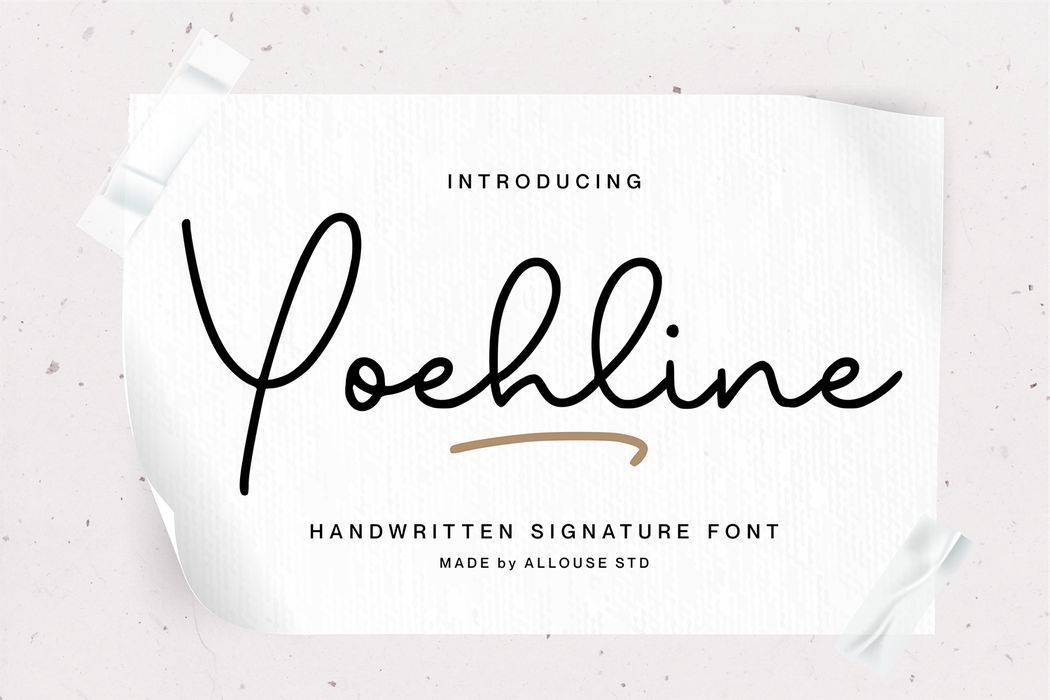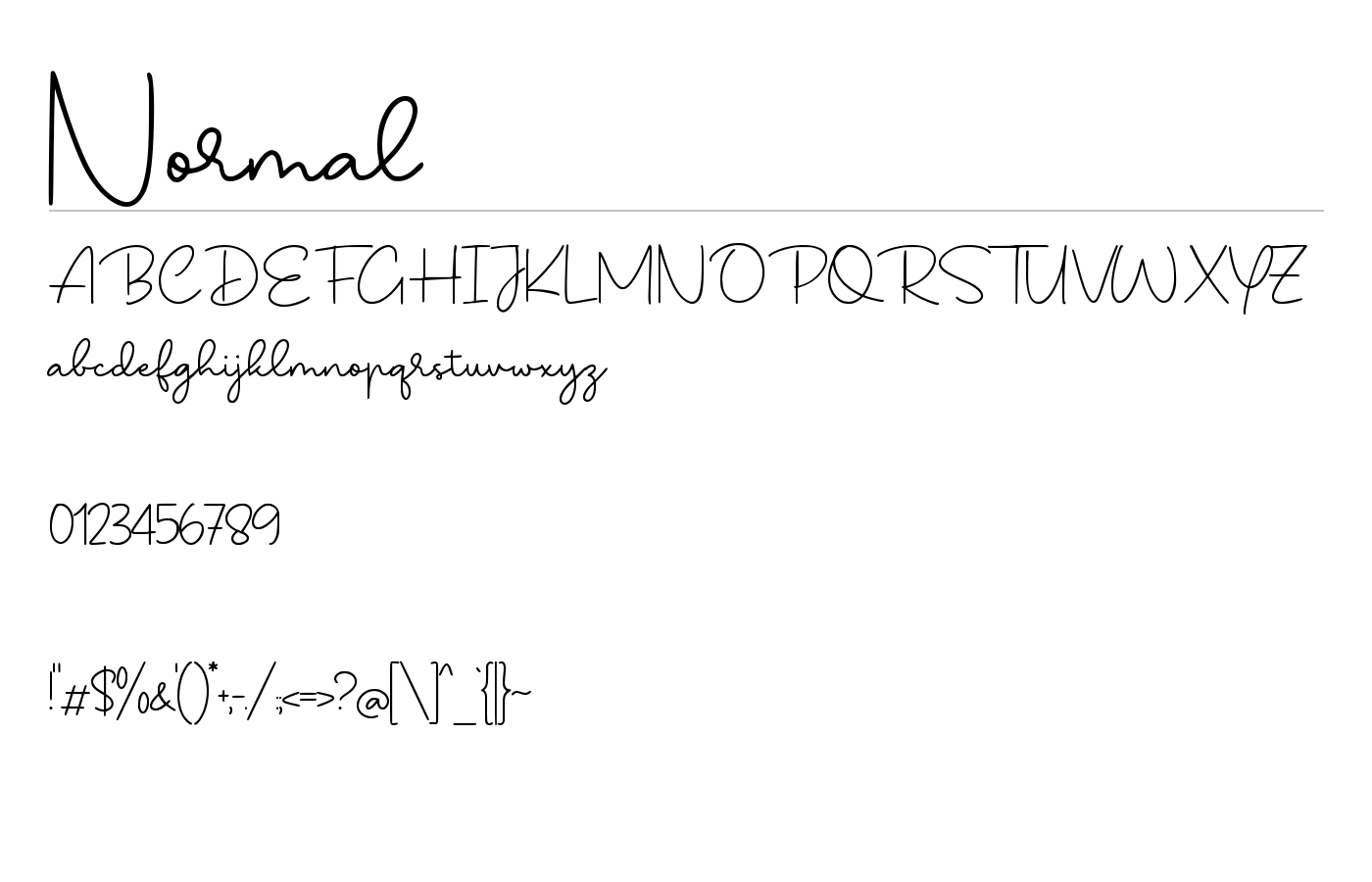
Yoehline is a delicate, handwritten script font featuring slender, tall letterforms with a playful yet refined character. Its light weight and airy spacing make it ideal for personal invitations, casual branding, and creative projects that benefit from an elegant, intimate feel. This font works best in display uses such as logos and headlines where a natural, handwritten touch can add warmth and personality.
Yoehline Font
About Yoehline Font